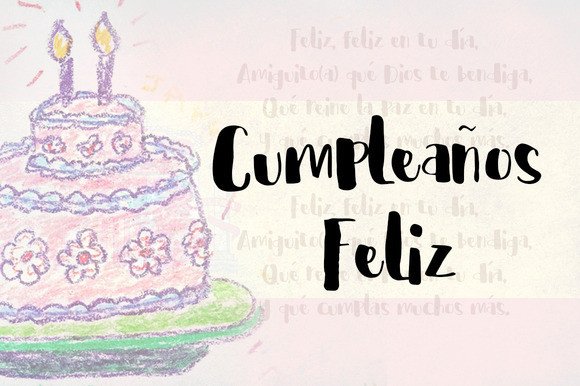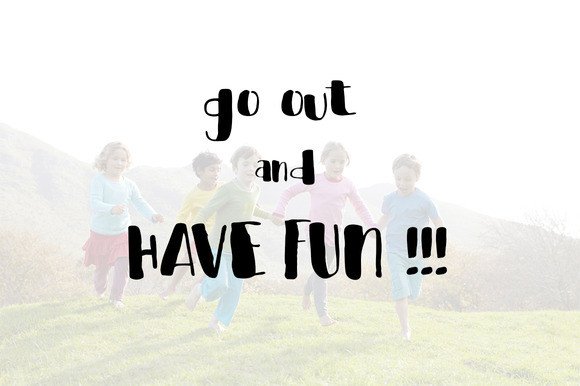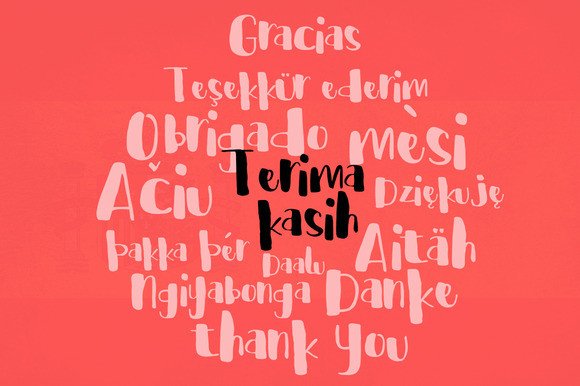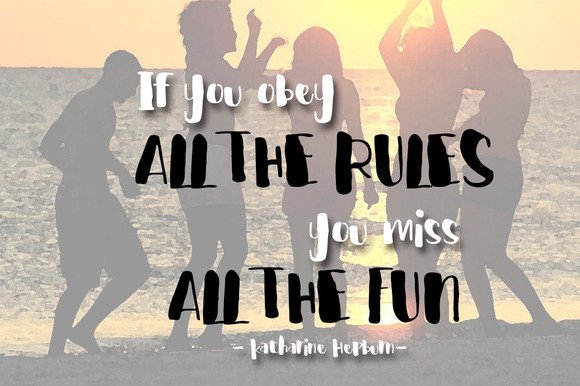
Introduction to Chocolava Font
As a designer, have you ever found yourself stuck in a creative rut, searching for that perfect font to elevate your project? You know, that one font that makes your brand stand out and leaves a lasting impression on your audience? I’m guessing you’ve probably scrolled through countless design resources, only to settle for a font that’s just okay. Well, today I’m excited to introduce you to a game-changer: the Chocolava Font.
This charming display font is a design dream come true, boasting a delightful cutesy feel that’s perfect for branded content. With its high-quality design and transparent background, Chocolava Font is a versatile resource that’s sure to impress. And the best part? It’s available for a free download, making it an absolute must-have for any creative project.
Key Features of Chocolava Font
- Unique, hand-drawn design style with a transparent background, ideal for creative projects that require a touch of whimsy.
- Can be used for a variety of creative projects, from logos and branding to packaging and editorial design.
- Perfect for designers looking for a high-quality, unique design resource to elevate their creative projects.
Honest Review: Chocolava Font
As a designer, I’m always on the lookout for high-quality design resources to elevate my creative projects. The Chocolava Font is a recent discovery that caught my attention, and I’m excited to share my honest review.
- ✨ Unique and quirky design aesthetic that adds a touch of personality to any project.
- ✨ Highly legible and versatile, making it suitable for a wide range of creative applications.
- ⚠️ Limited font styles and variations, which might not be ideal for designers who require a more extensive font library.
- ⚠️ Not all font weights are available with a transparent background, which might be a concern for designers who need to use the font on a transparent background.
Overall, I’m impressed with the Chocolava Font’s design quality and versatility. While it may have some limitations, it’s a great resource for designers who want to add a unique touch to their creative projects. I’d definitely recommend it for any design project that requires a high-quality, free font download.
To get the most out of Chocolava Font, use it in combination with other design elements, such as images and graphics. Experiment with different font sizes, colors, and styles to create a visually appealing design.
Common Use Cases for Chocolava Font
The Chocolava Font is commonly used in creative projects, such as logos, brochures, and social media graphics. It is also used in presentations, documents, and websites to add a touch of elegance and sophistication.